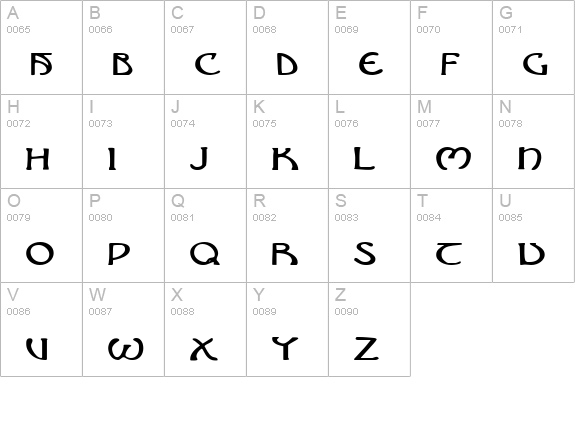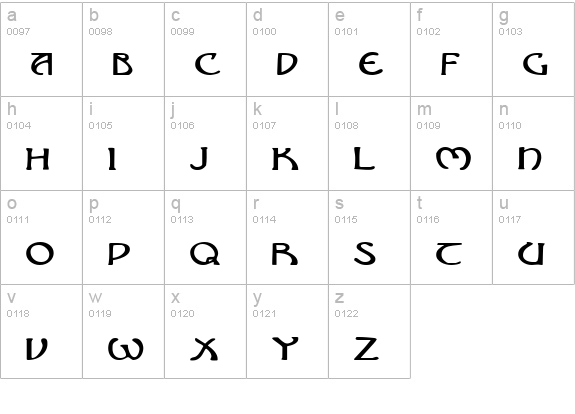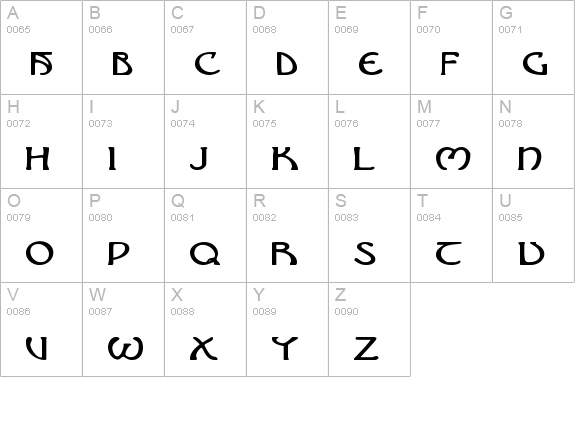
Brin Athyn Expanded is a distinctive, extended-width variant in the Brin typeface family \xE2\x80\x94 well suited to design and typography projects.
Brin Athyn Expanded font is a versatile and modern typeface that exudes sophistication and elegance. Its sleek lines and bold presence make it perfect for a wide range of design projects, from branding to editorial design. The expanded version of Brin Athyn offers a unique twist on the classic font, providing a wider and more impactful appearance. This font is a must-have for designers looking to make a statement with their typography. Whether you're creating a logo, poster, website, or any other design project, Brin Athyn Expanded font is sure to elevate your work to the next level. The best part? Brin Athyn Expanded font is completely free to download at FontsMarket.com. This means you can start using this stunning typeface in your projects right away, without any cost involved. Don't miss out on this fantastic opportunity to enhance your designs with Brin Athyn Expanded font today!